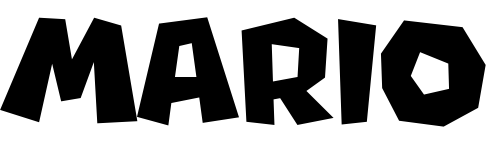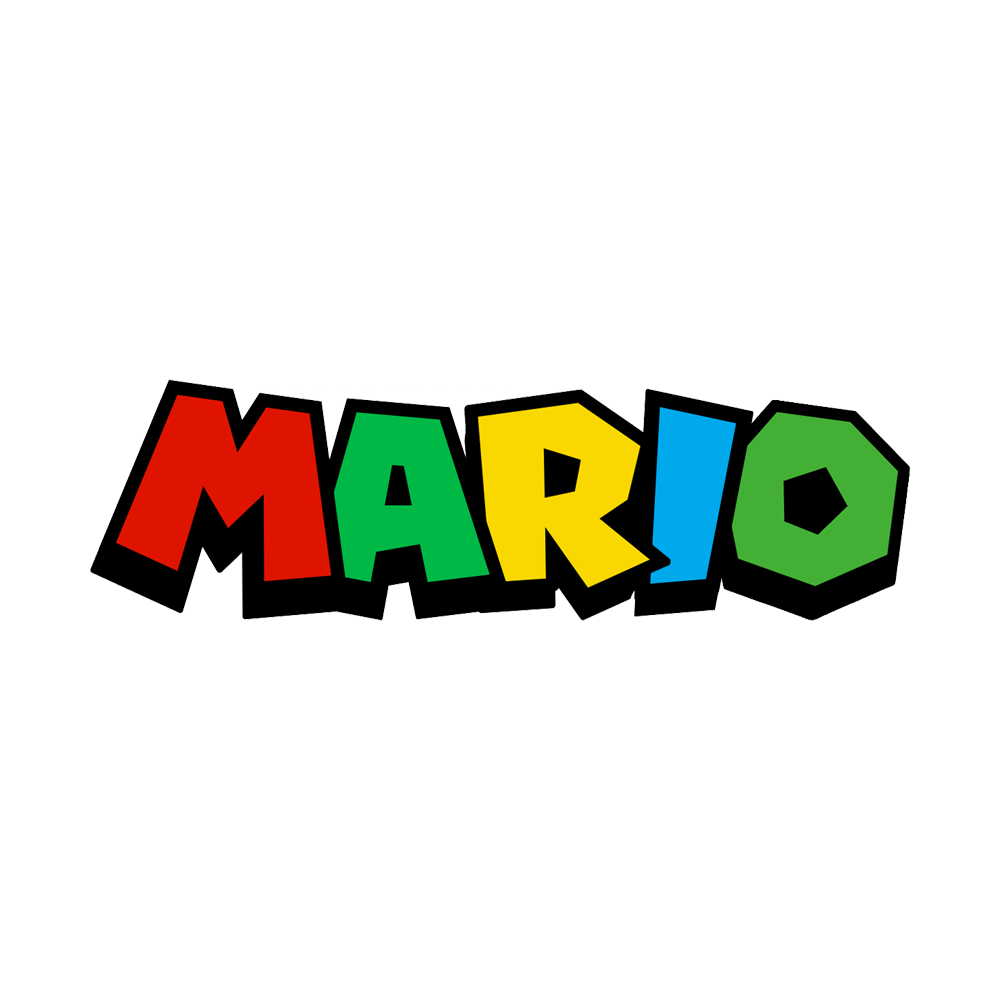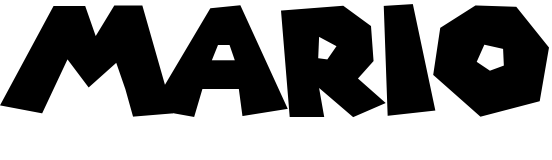
Mario Font
LogoMario is a fictional character in the "Super Mario" series of video games created by Nintendo. Known for his distinctive red hat and mustache, he's a plucky Italian plumber who travels through various worlds, often rescuing Princess Peach from the villainous Bowser.